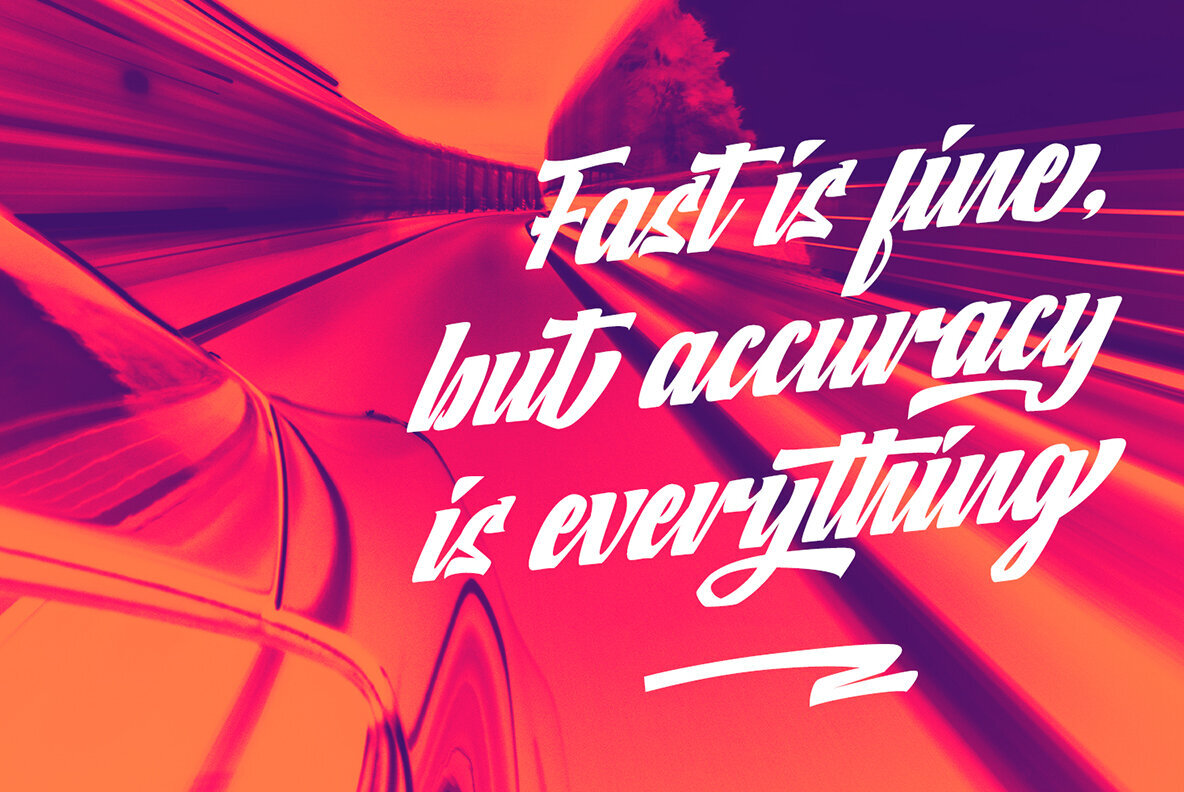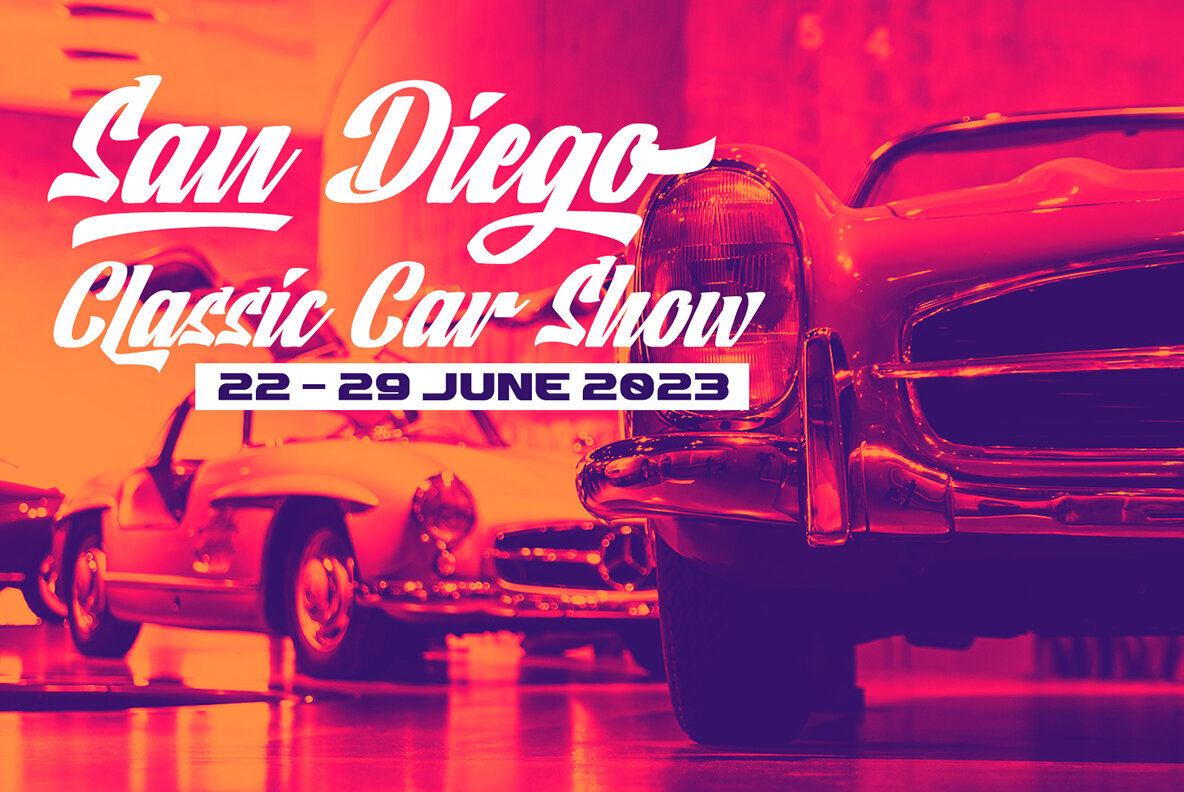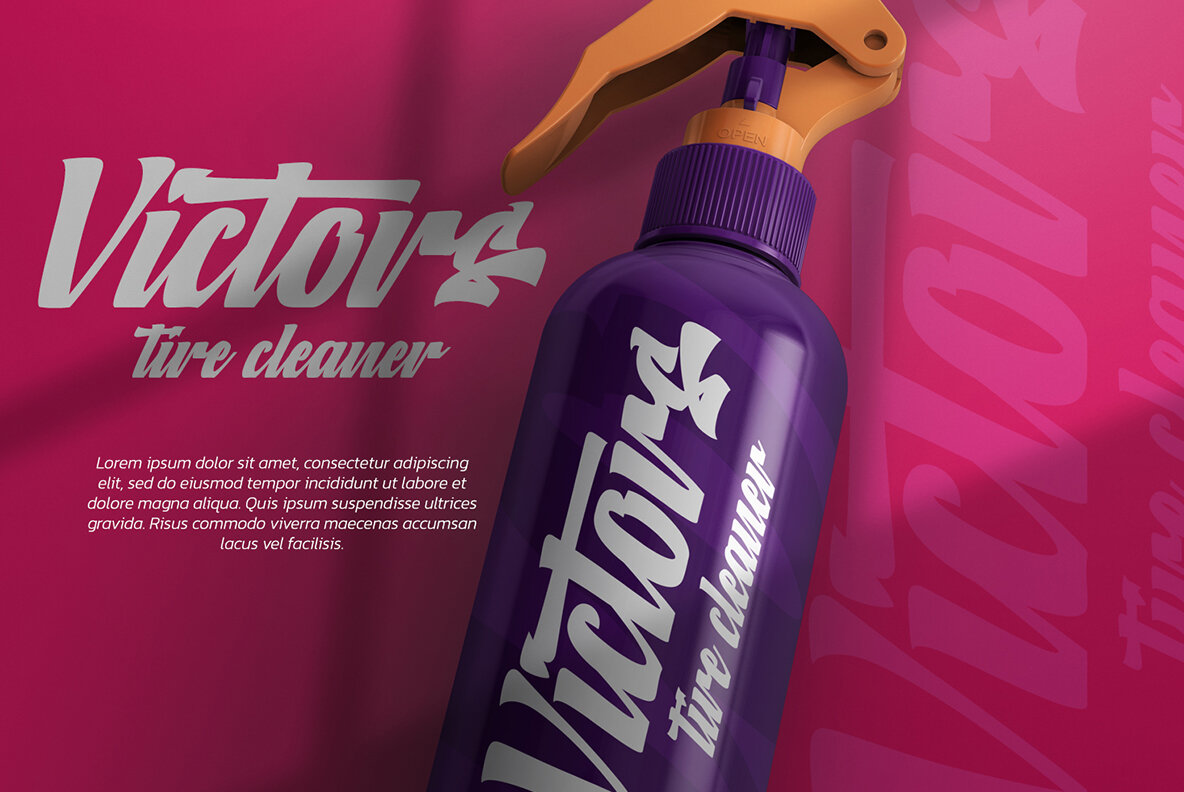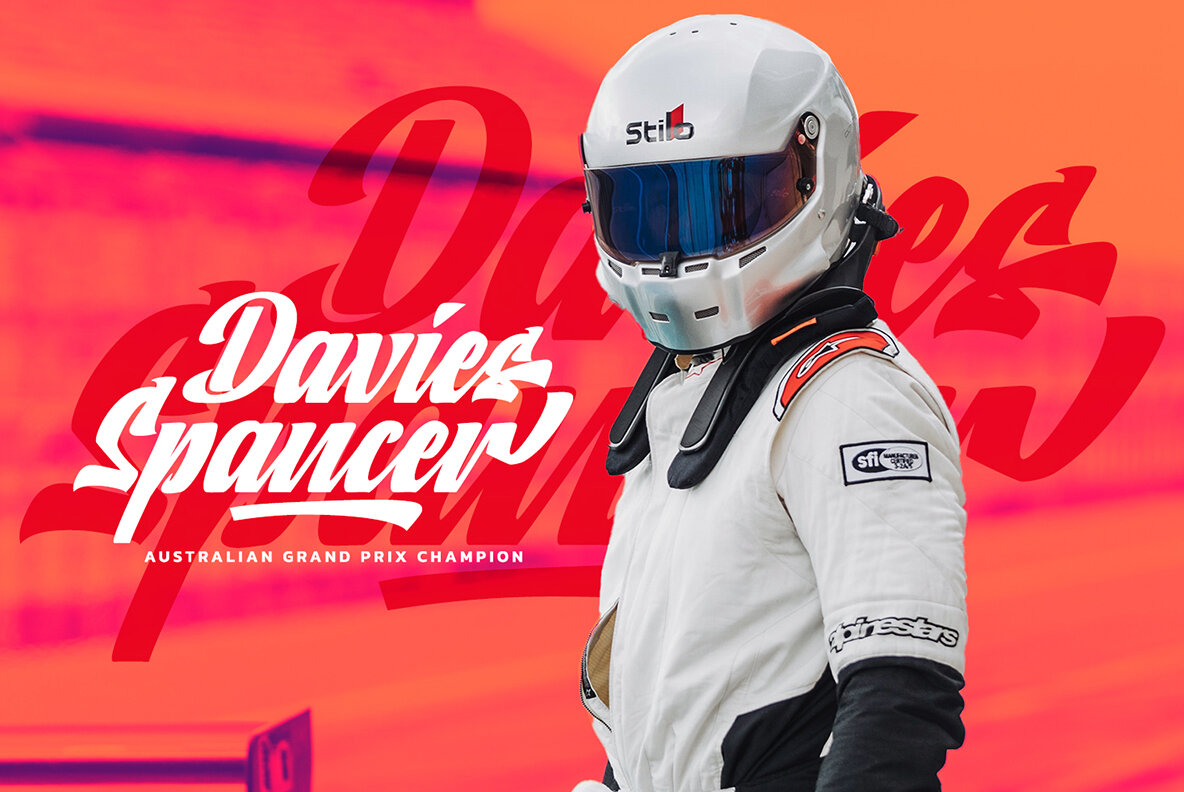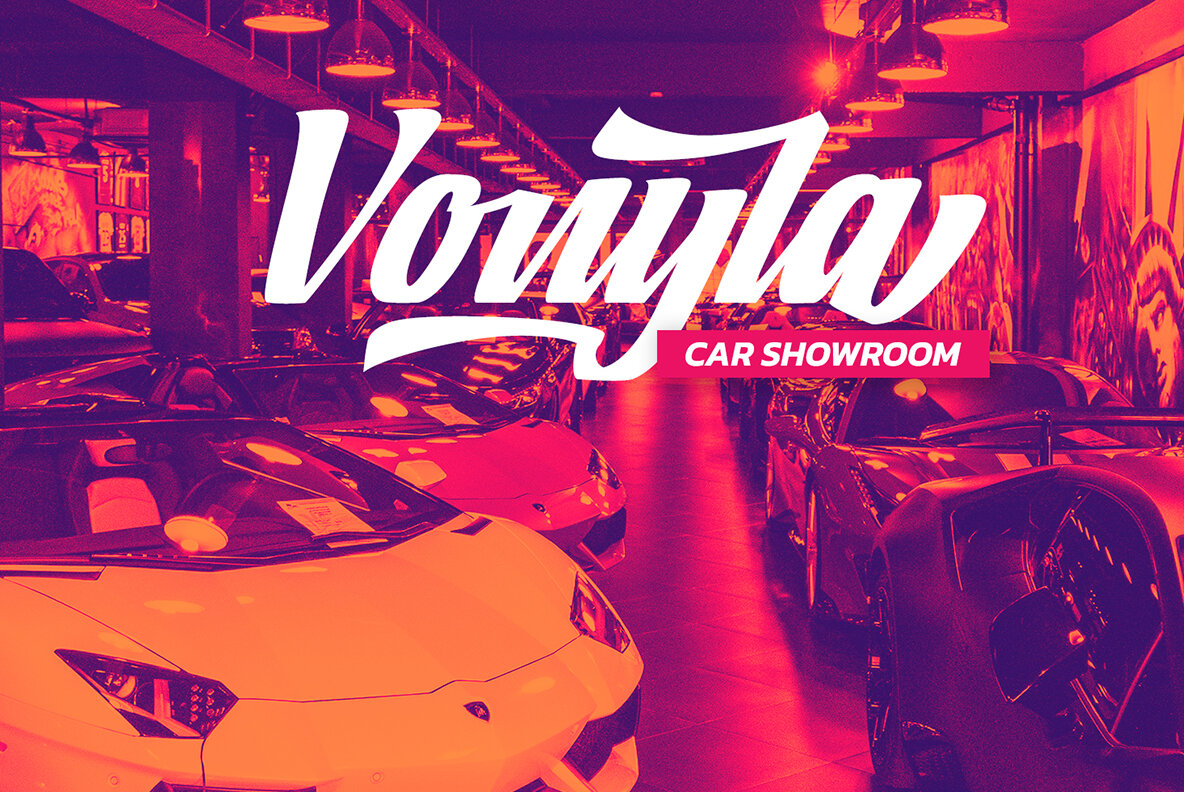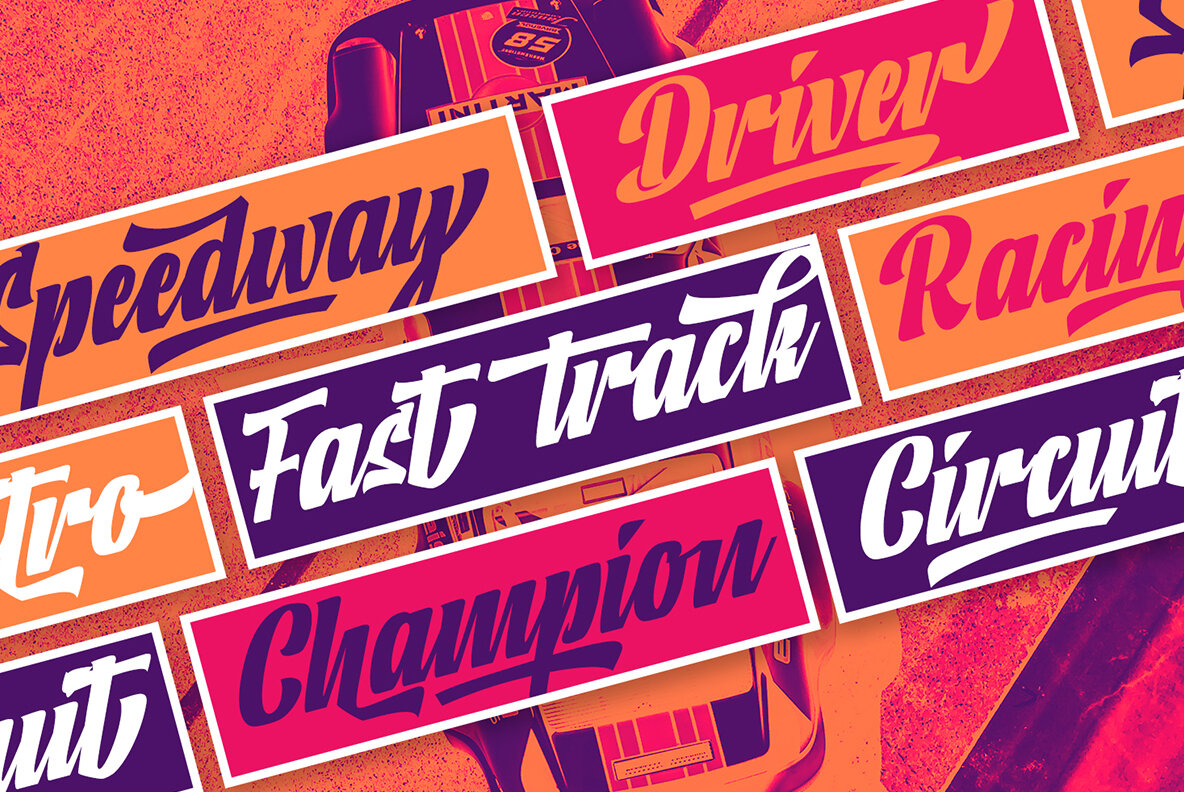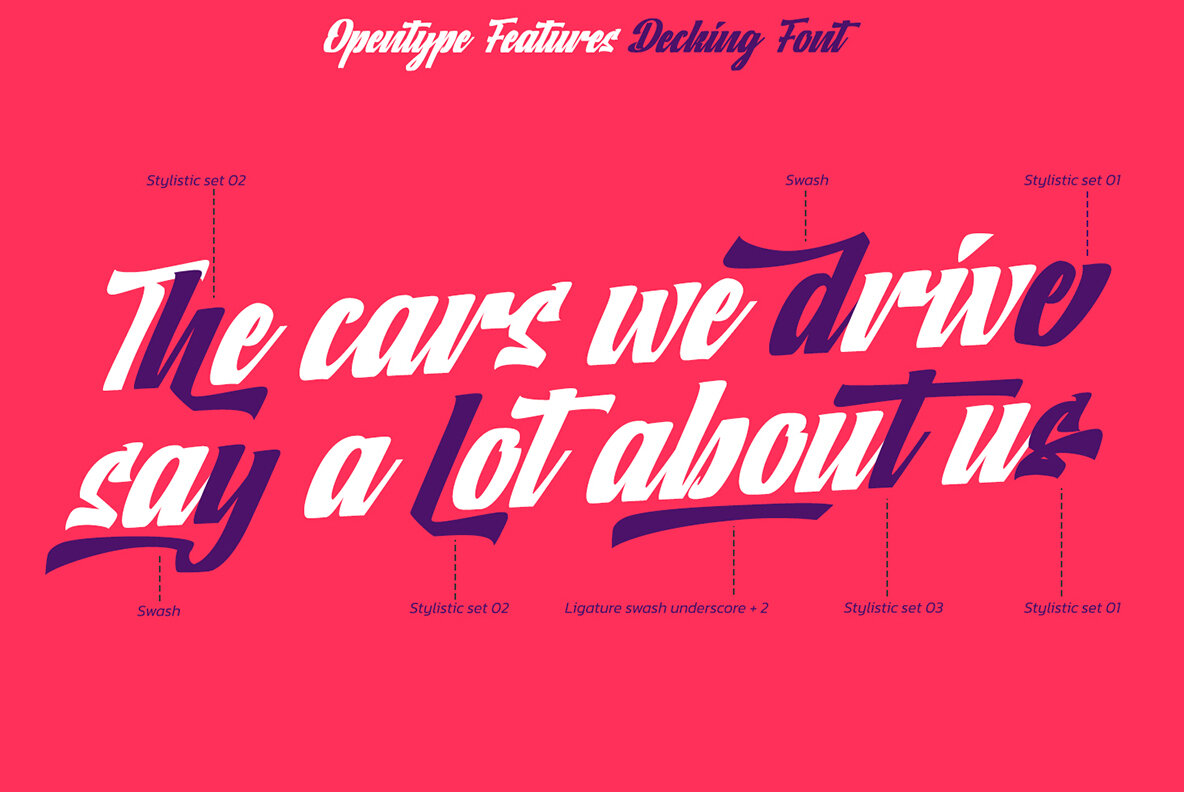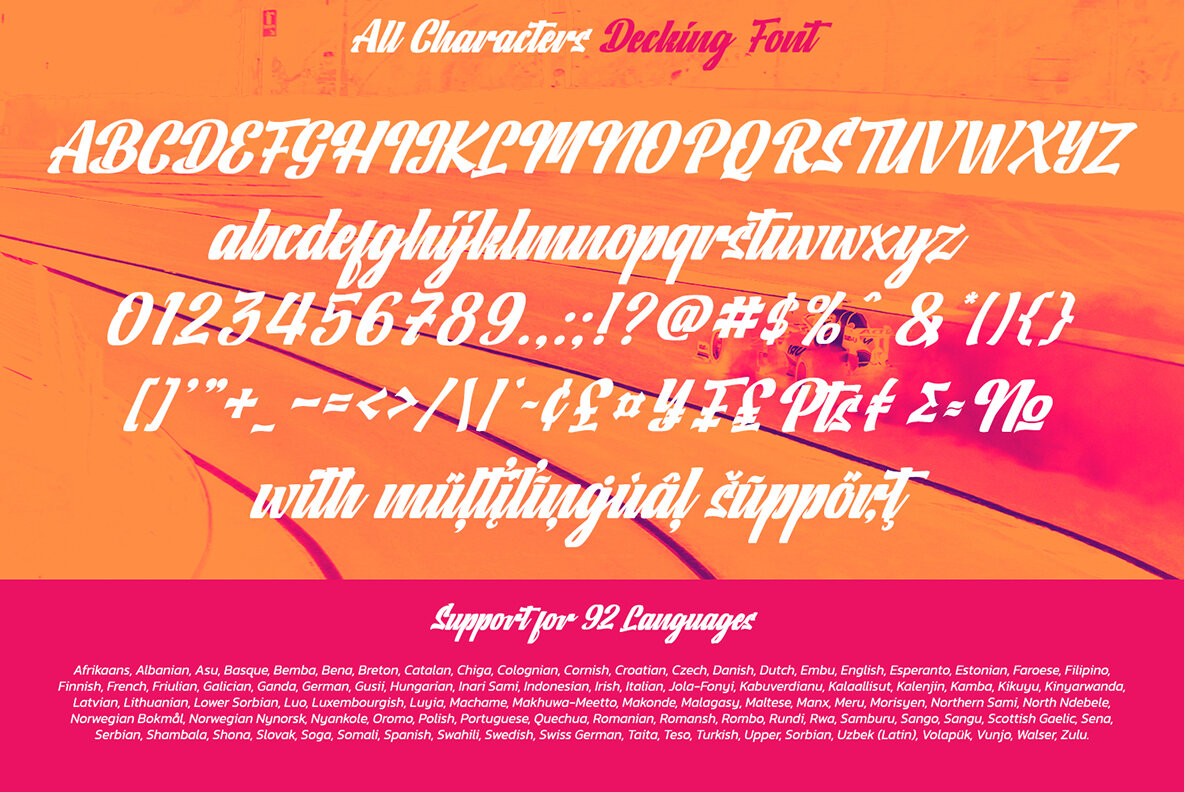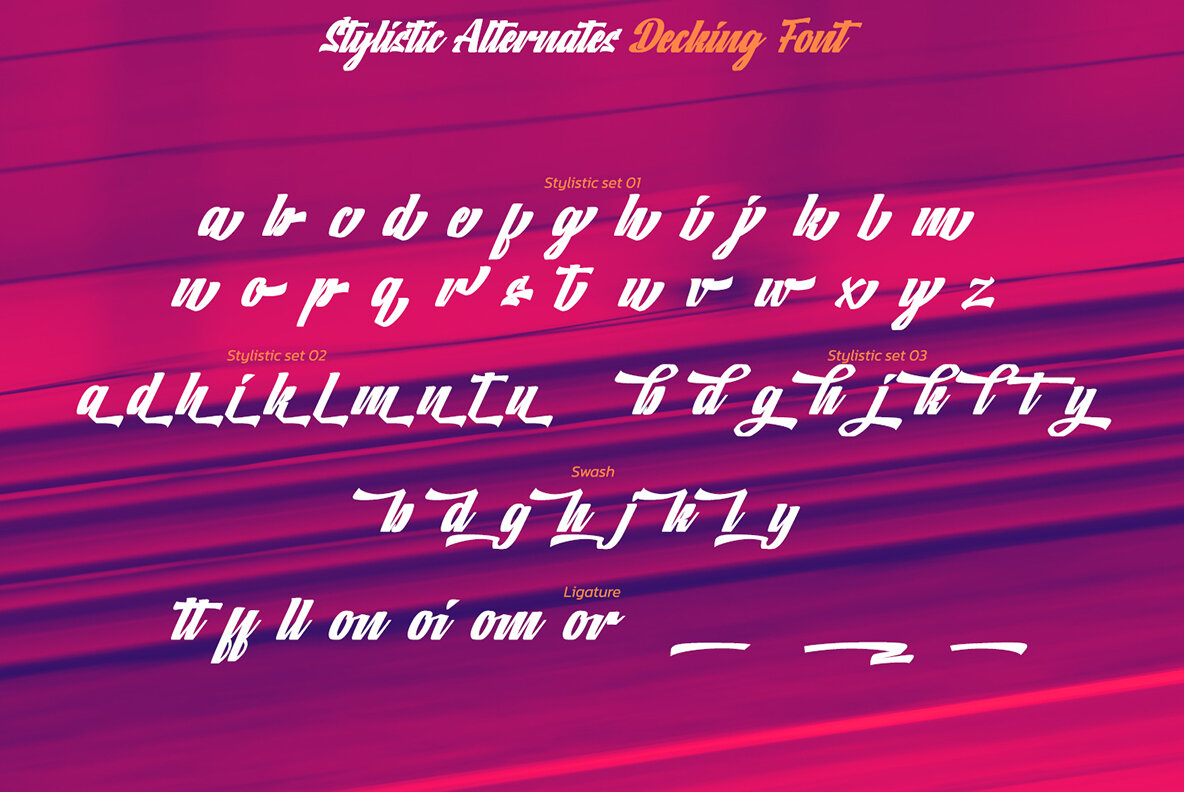
Decking Font
Decking
Decking brings the dynamic flair of a race track to your design projects. This script font expertly balances artistic flair with firm structure through its unique character strokes and substantial thickness, making it ideal for commanding titles and headers. Despite its bold appearance, Decking maintains readability in smaller text applications, ensuring versatility across your brand's assets. Perfect for enhancing visuals in posters, banners, logos, book covers, and more, Decking seamlessly integrates into both large and small design elements. Discover the full potential of this font in your creative endeavors. We are here to assist you with any inquiries or support needs.Decking: Racing-Inspired Script Font